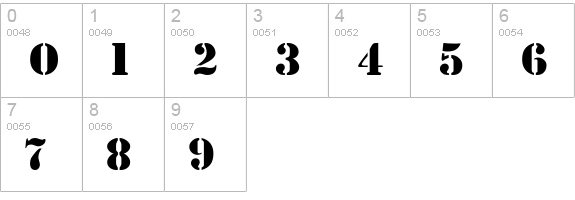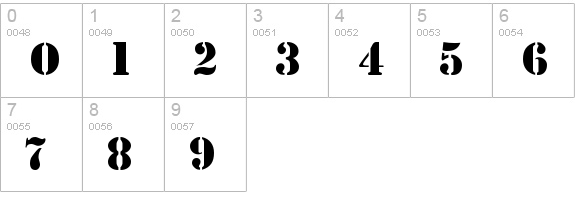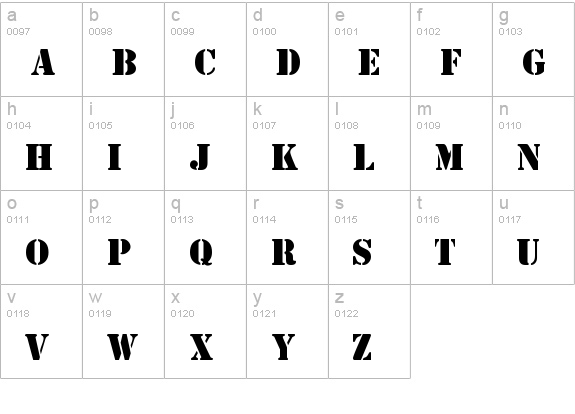
RoadieSSK Bold is a strong, high-contrast variant in the RoadieSSK typeface family \xE2\x80\x94 well suited to headlines, attention-grabbing titles, and strong calls-to-action.
RoadieSSK Bold font is a versatile and dynamic typeface that exudes strength and modernity. Its bold letterforms command attention and convey a sense of confidence and boldness. This font is perfect for creating impactful headlines, branding materials, and designs that need to make a strong statement. What sets RoadieSSK Bold font apart is that it is available for free download at FontsMarket.com. This means that you can easily access this high-quality font without any cost, making it a valuable addition to your font library. With its bold and impactful design, RoadieSSK Bold font is sure to elevate your projects and make a lasting impression.